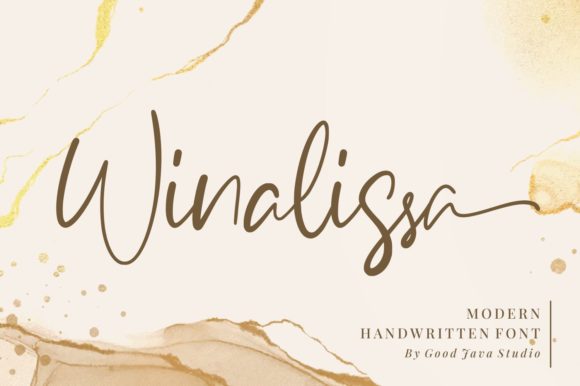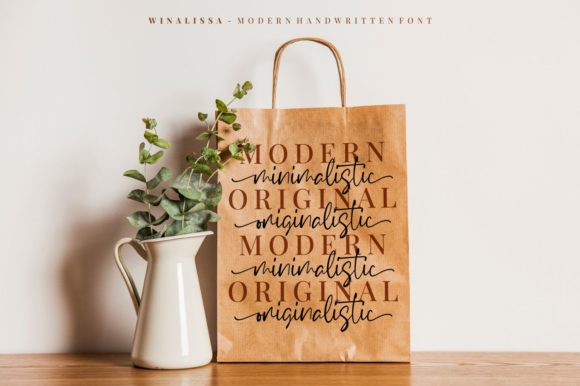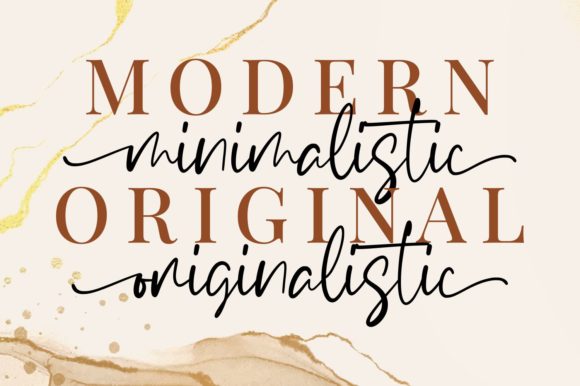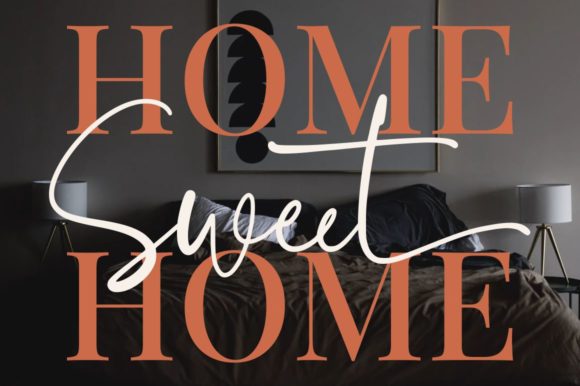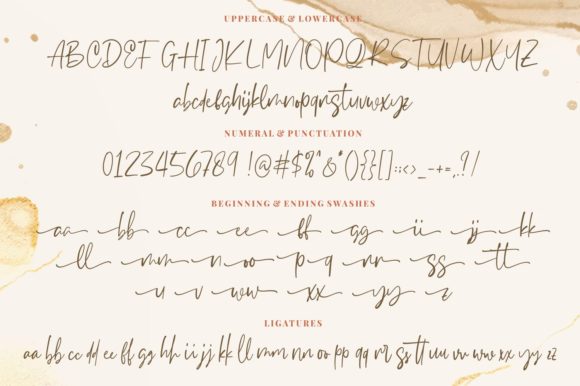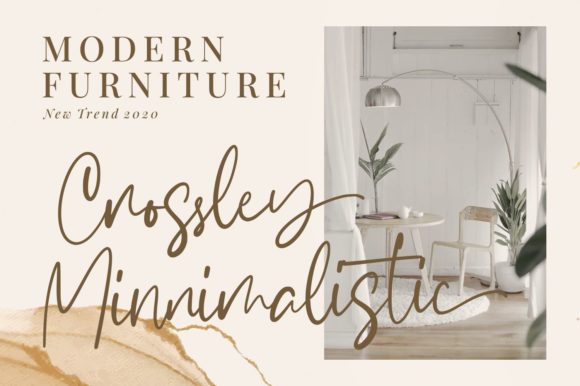
Winalissa Font
About Winalissa Font
Winalissa is a flowing and relaxed handwritten font. It is PUA encoded which means you can access all of the glyphs and swashes with ease! It features a varying baseline, smooth lines, gorgeous glyphs and stunning alternates. Add this elegant and timeless font to your creative ideas and notice how it makes them stand out!